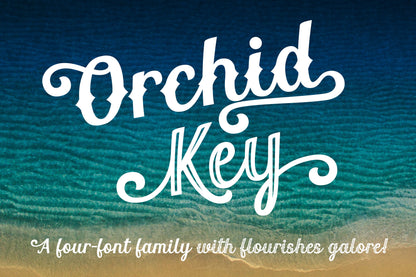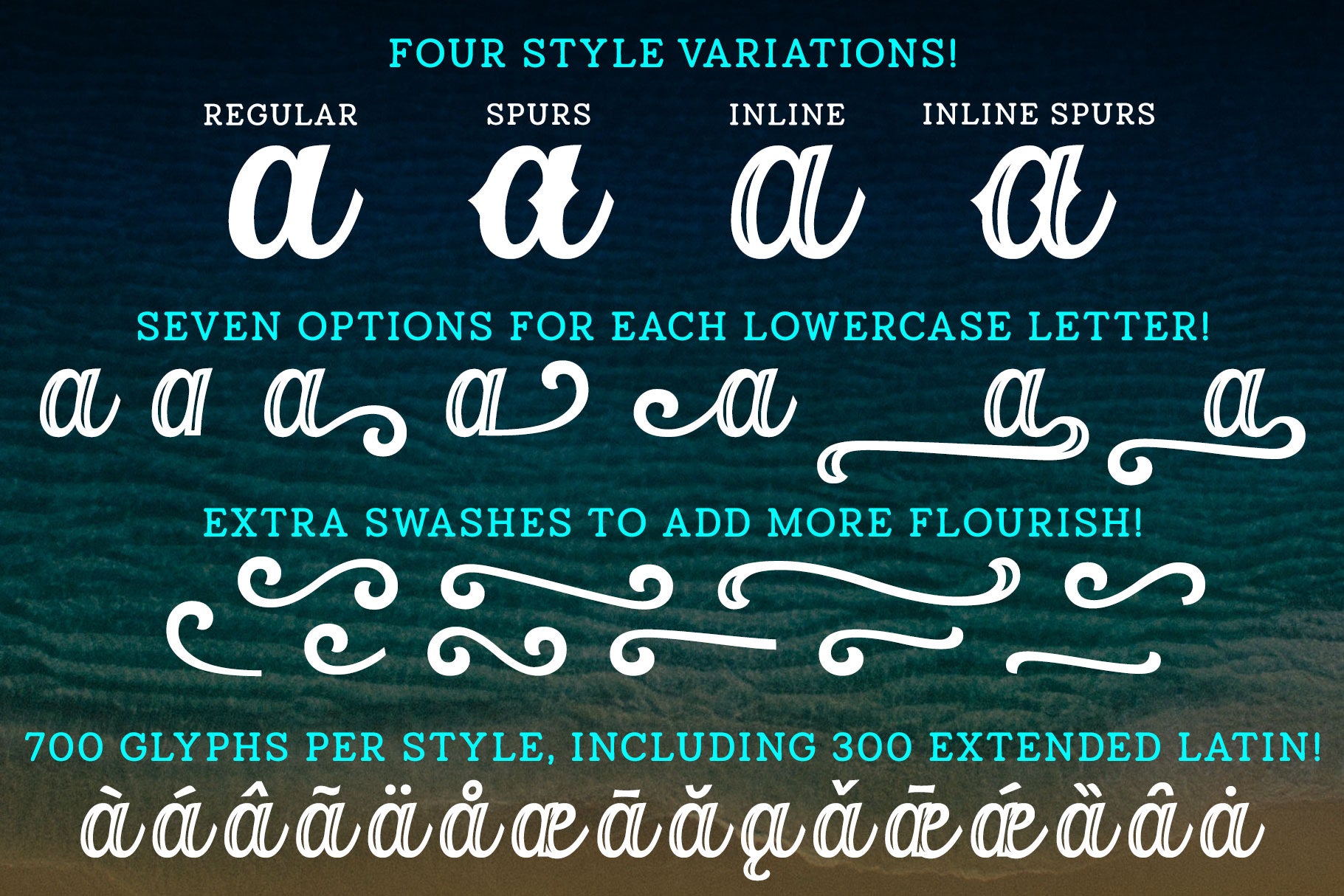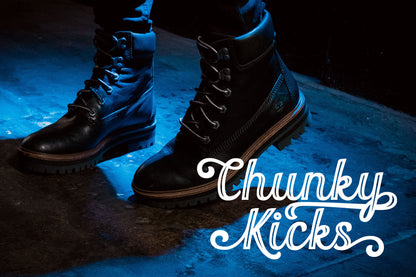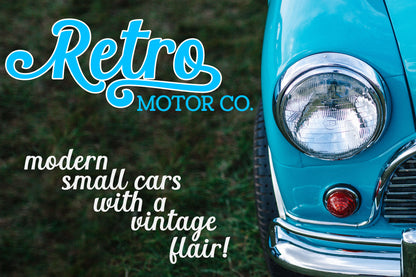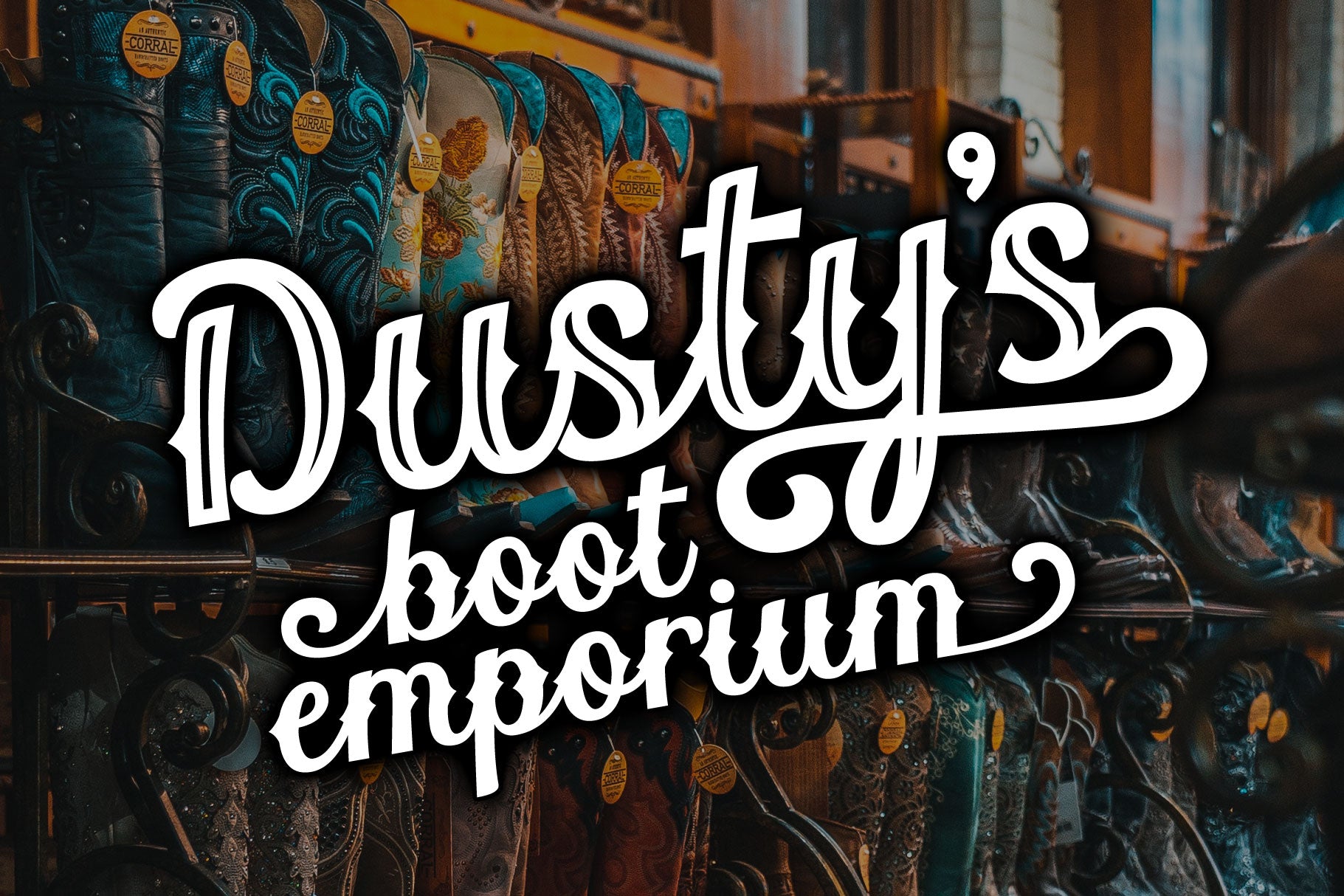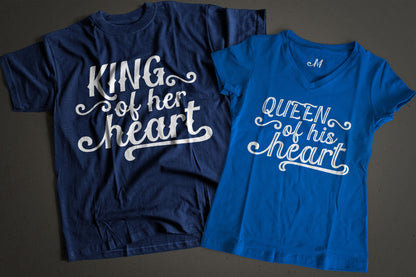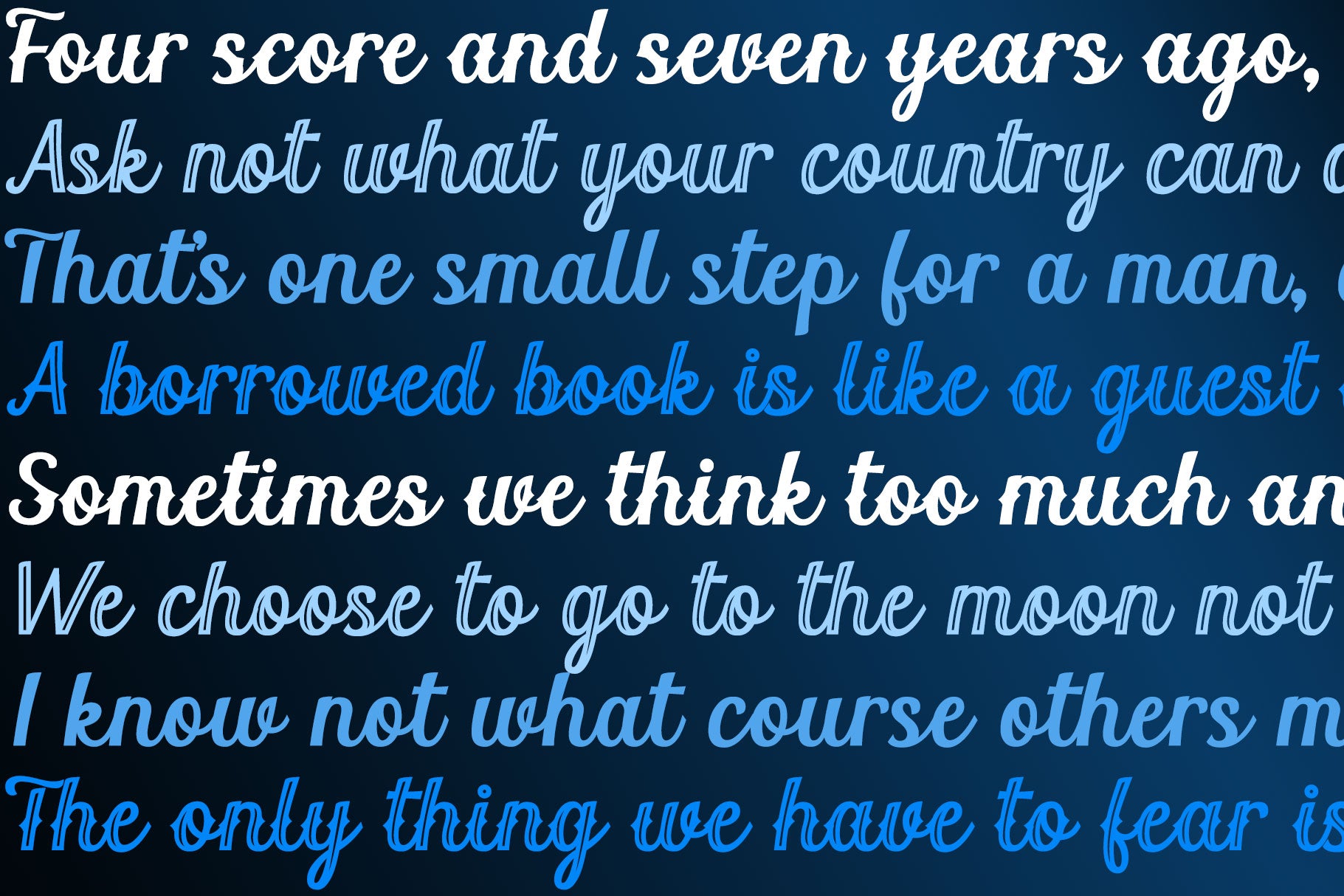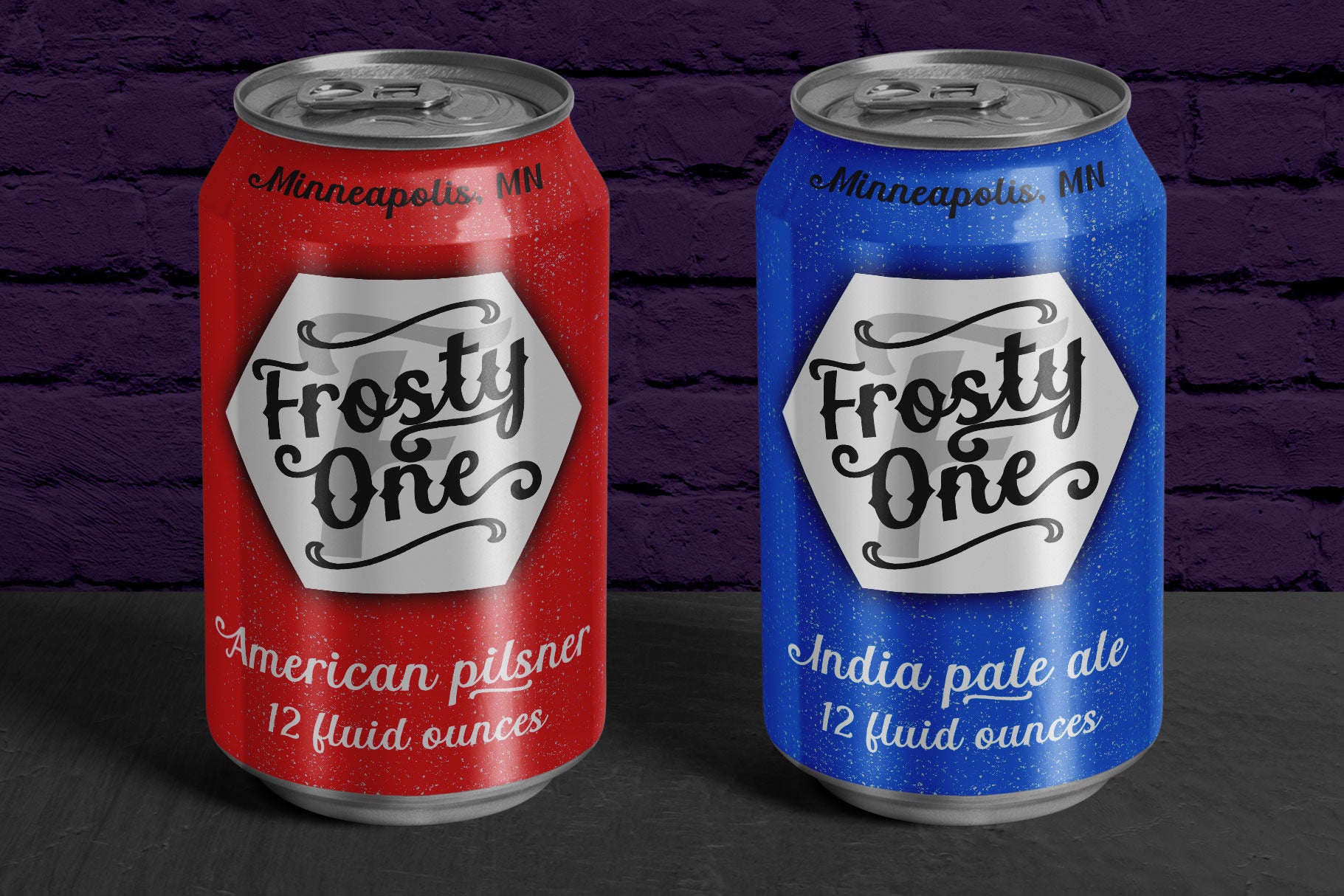
I built the Orchid Key font family from the ground up with the idea that there would be several different styles; the Inline Spurs style was the first to be built, which let me then subtract the spurs, inline slices, or both to make the other styles. I've never made a font quite like this before, which shows in the time it took: over 5 months total for its construction!
Each style contains the same character set, with 700 total glyphs. Each has the usual basics: letters, numbers, and punctuation; plus over 300 extended Latin characters for language support, and almost 200 alternates for tons of variety! There's a swash alternate for every uppercase letter, at least 6 alternates for every single lowercase letter, and a set of 10 extra swashes and flourishes so you can customize!
Whether you're looking for a western or country look, a retro look, or a modern hipster look for your project, check out Orchid Key!